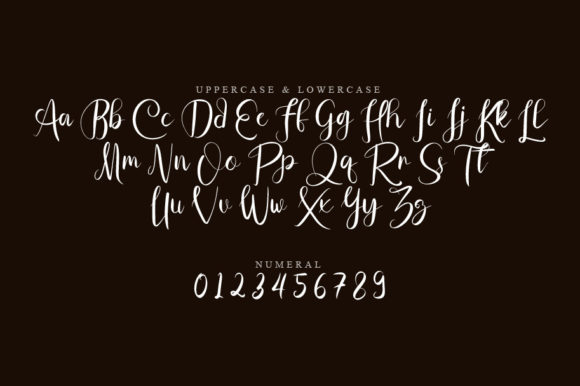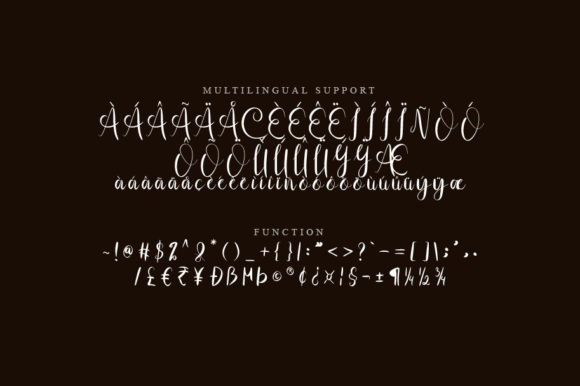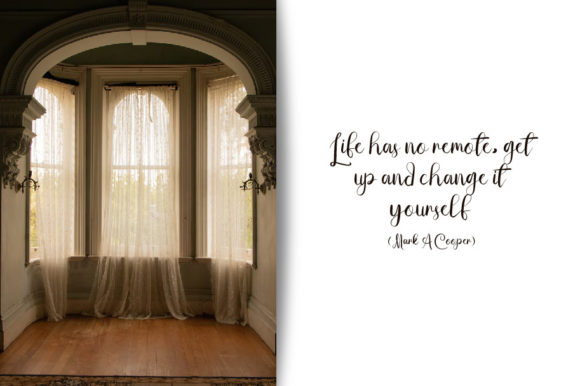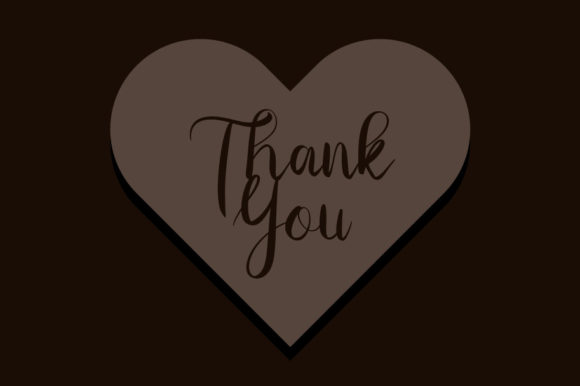
Discover the Timeless Charm of Antique Script Font
Are you a designer or crafter looking for a font that exudes elegance and sophistication? Look no further than the Antique Script Font. This lovely and timeless handwritten font is the perfect choice for creating eye-catching logos, branding, and quotes that will leave a lasting impression.
The Unique Touch of Antique Script
What sets Antique Script apart from other fonts is its unique and beautiful touch. Every letter has been carefully crafted to showcase a distinctive character that will make your design come alive. The font’s handwritten nature gives it a personal and organic feel, making it perfect for projects that require a touch of warmth and personality.
Antique Script Font is an excellent choice for creating logos and branding materials. Its elegant and sophisticated design makes it perfect for businesses that want to convey a sense of luxury, refinement, and tradition. Whether you’re designing a logo for a high-end fashion brand, a boutique hotel, or a gourmet food company, Antique Script is sure to impress.
Add a Touch of Elegance to Your Quotes
Antique Script Font is also perfect for creating beautiful and eye-catching quotes. Whether you’re designing a social media graphic, a print poster, or a digital display, this font will add a touch of elegance and sophistication to your text. The font’s unique and beautiful touch will make your quotes stand out and leave a lasting impression on your audience.
Why Choose Antique Script Font?
So, why choose Antique Script Font over other fonts? Here are just a few reasons:
- Timeless design: Antique Script Font has a timeless design that will never go out of style. Its elegant and sophisticated design makes it perfect for projects that require a classic and refined look.
- Unique and beautiful touch: Every letter in Antique Script Font has a unique and beautiful touch that will make your design come alive.
- Perfect for logos and branding: Antique Script Font is perfect for creating logos and branding materials that require a touch of elegance and sophistication.
- Versatile: Antique Script Font is versatile and can be used for a wide range of projects, from digital displays to print materials.
Tips for Using Antique Script Font
Here are a few tips for using Antique Script Font:
- Use it sparingly: Antique Script Font is a bold and elegant font, so use it sparingly to make a maximum impact.
- Pair it with a simple font: Pair Antique Script Font with a simple font to create a beautiful contrast and make your design stand out.
- Experiment with colors: Experiment with different colors to find the perfect combination that complements your design.
In conclusion, Antique Script Font is a lovely and timeless handwritten font that is perfect for designers and crafters looking for a touch of elegance and sophistication. Its unique and beautiful touch makes it perfect for creating eye-catching logos, branding, and quotes that will leave a lasting impression. With its timeless design, versatility, and ease of use, Antique Script Font is a must-have for any designer or crafter looking to add a touch of class to their projects.